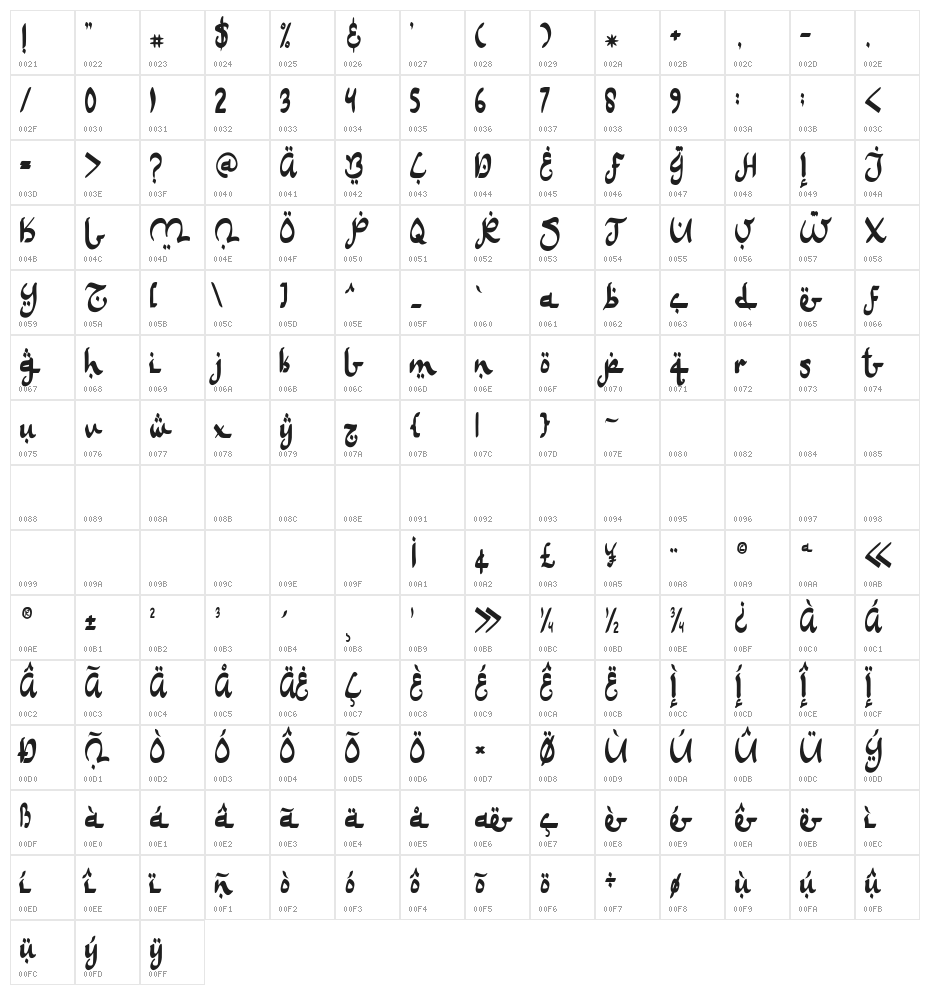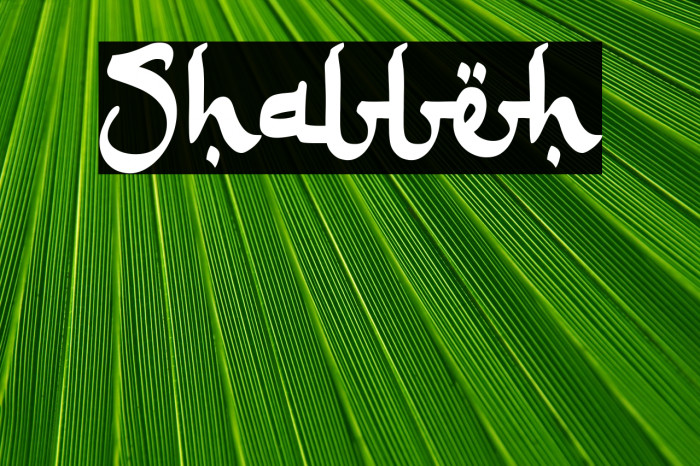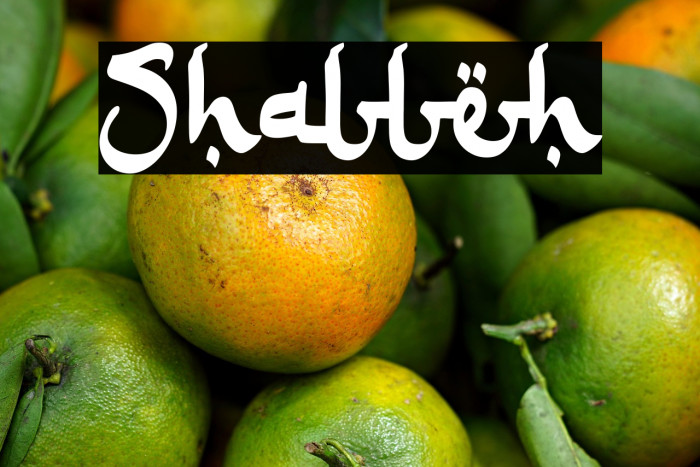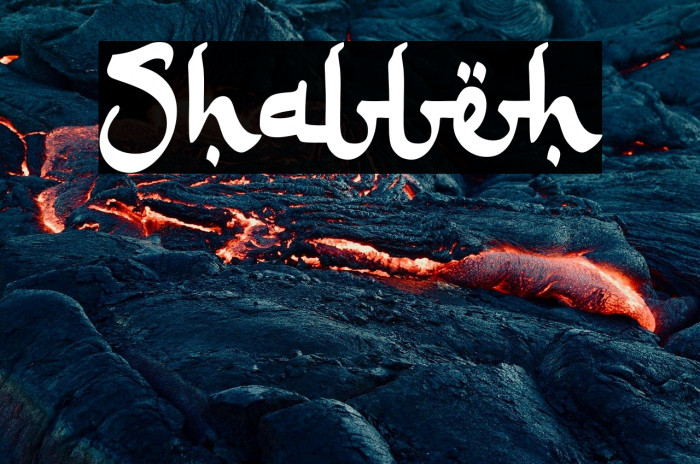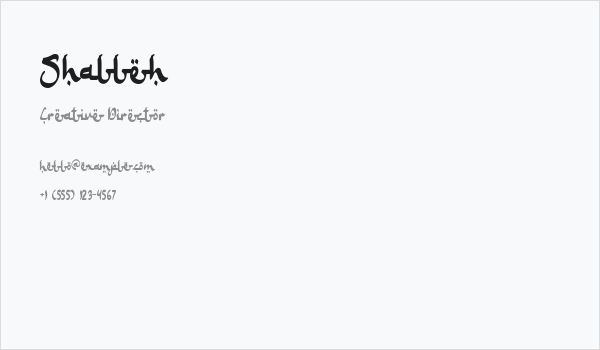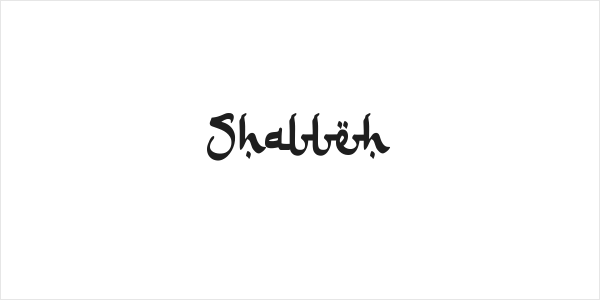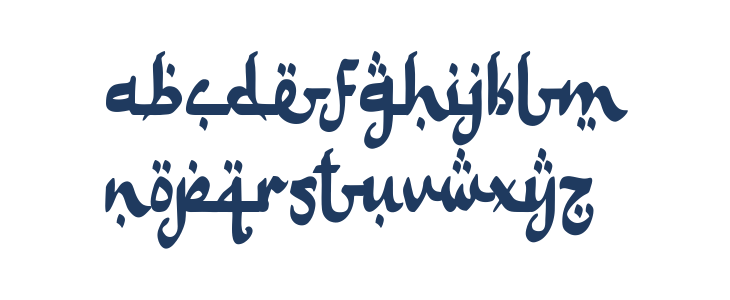
Shalleh Font
Shalleh Description
This font features a unique blend of calligraphic and modern design elements, characterized by its flowing, cursive style with a bold presence. The letters are adorned with distinctive curves and loops, giving it an artistic and expressive appearance. The uppercase and lowercase letters maintain a consistent style, with some letters featuring additional flourishes that enhance its decorative nature. The numerals and special characters are designed to complement the overall aesthetic, maintaining the same bold and flowing characteristics. This font is ideal for projects that require a touch of elegance and creativity, making it suitable for artistic and decorative purposes.
| Proposed Projects | Ideal for invitations, greeting cards, artistic posters, and branding materials that require a creative and elegant touch. |